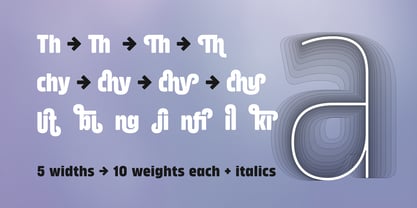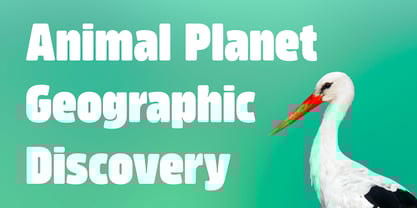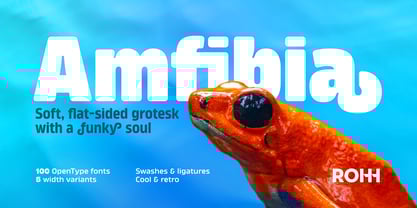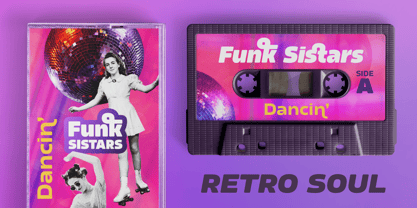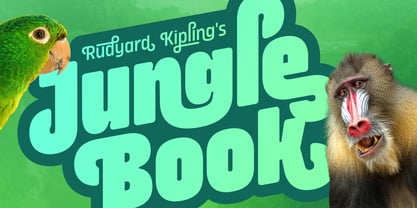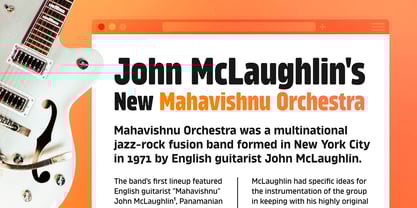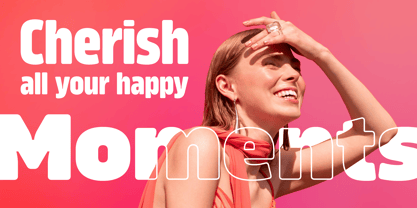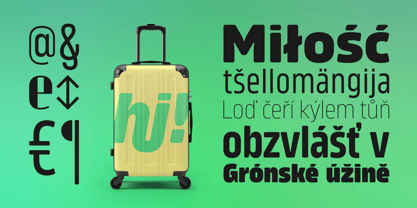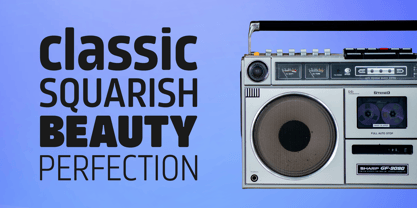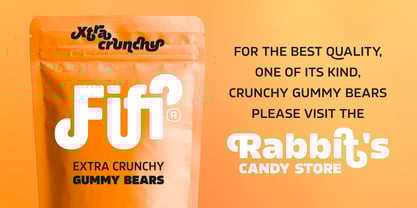
Amfibia™
La familia tipográfica Amfibia fue diseñada por Roch Modrzejewski y publicada por ROHH. Amfibia contiene 101 estilos y opciones de paquete familiar.
Massive, blocky, and heart-melting! Amfibia is a minimalist, modernist sans that refused to be cold and distant. The squarish nature cannot hide its warm and gentle personality that just makes you feel good.
Perfect for eye-catching posters, sleek logos, and modern web layouts, Amfibia balances boldness with approachability. While the display weights are busy stealing the spotlight, Amfibia quietly boasts a range of grotesk styles that make sure your paragraphs look as good as the headlines! The family offers five widths, ten weights and italics—giving a total of 100 fonts to accommodate any creative endeavor.
Stuffed with swashes and ligatures, this typeface unleashes a flood of creative potential for product packaging, logo design, and advertising—Amfibia is ready to transform your projects into long lasting impressions!
Amfibia has a sibling—Karibu, which is a sharper and simpler, yet still friendly type.
Key Features
• 100 styles (10 weights + italics)
• 5 versatile widths
• friendly soft shapes & cool ink traps
• overload of swashes & ligatures
• over 920 glyphs
• Extended Latin language support